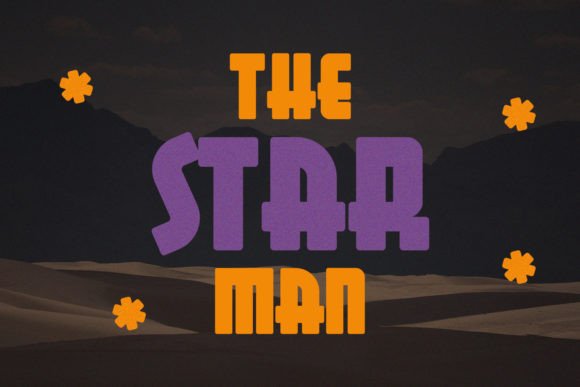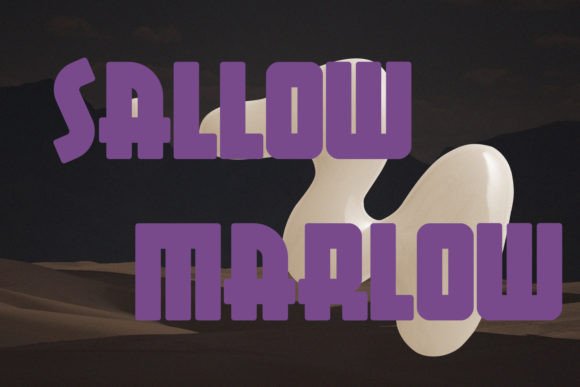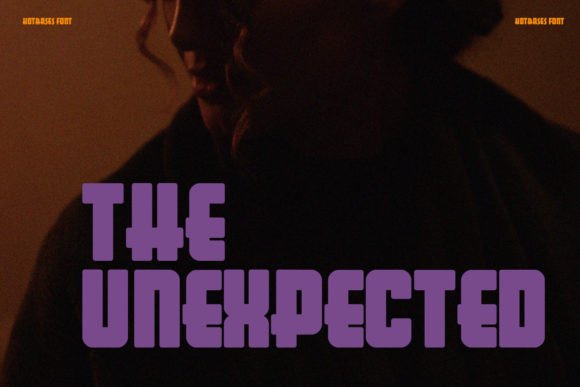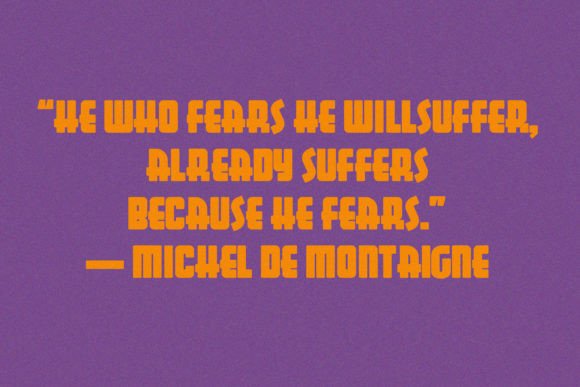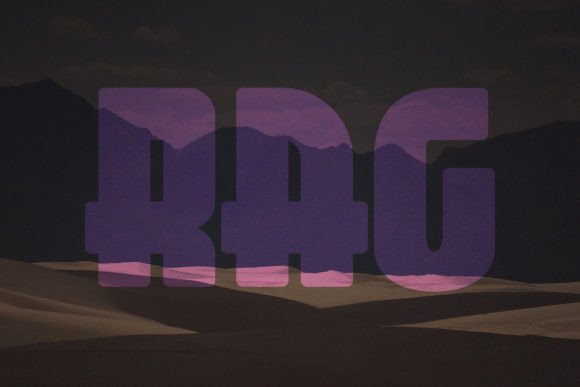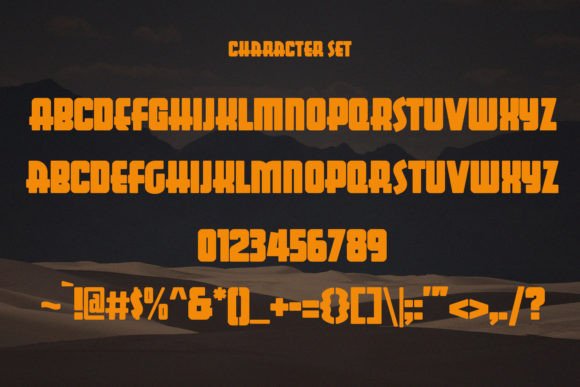
Introduction to Kotarses Font
Kotarses is a display sans display font.
Bold stroke, fun character with a bit of ligatures and alternates To give you an extra creative work.
Why Choose Kotarses Font?
Kotarses Font offers exceptional quality and versatility, making it a valuable addition to your design toolkit. Whether you’re creating for personal projects or commercial use, Kotarses Font delivers professional results.